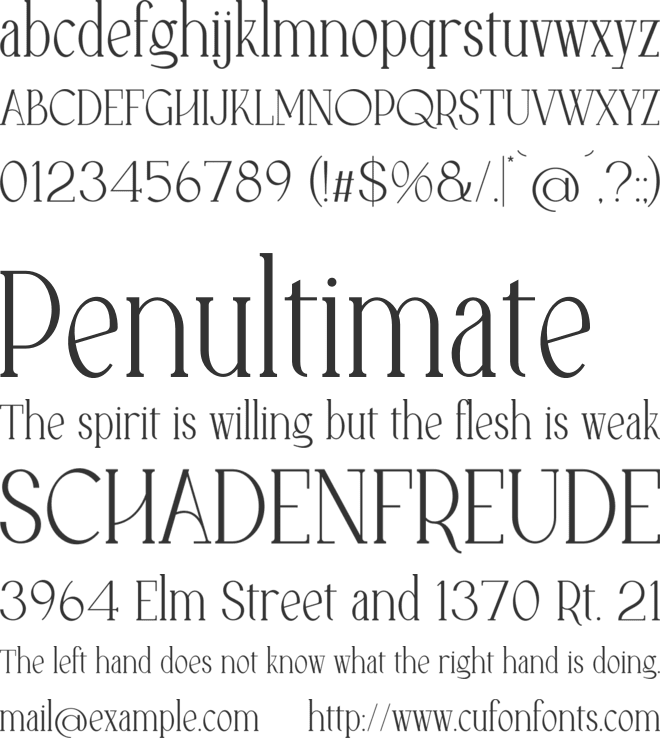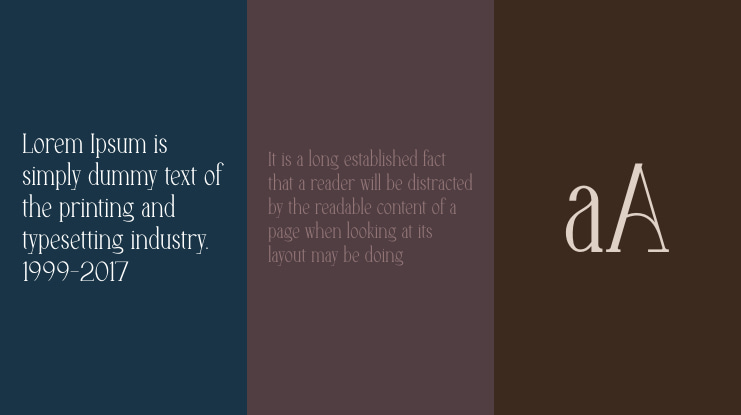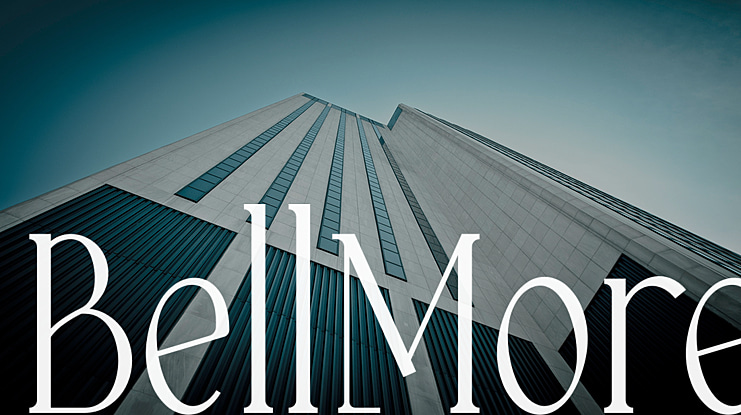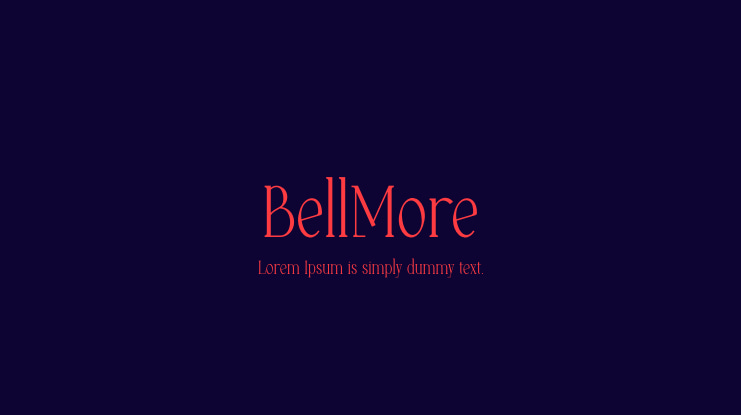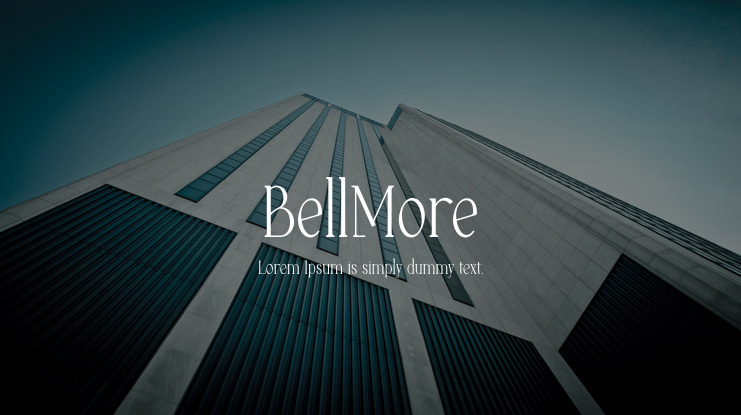
BellMore Font
This typeface is a vintage serif display with unique detail. It’s designed and shared by FactoryType. The elegant design is the result of combining modern and vintage elements. The different weights give you a lot of flexibility when it comes to choosing the right typographic color for your project. The available Ligatures and Italic styles offer a wide range of characters to give your project design an unique design.